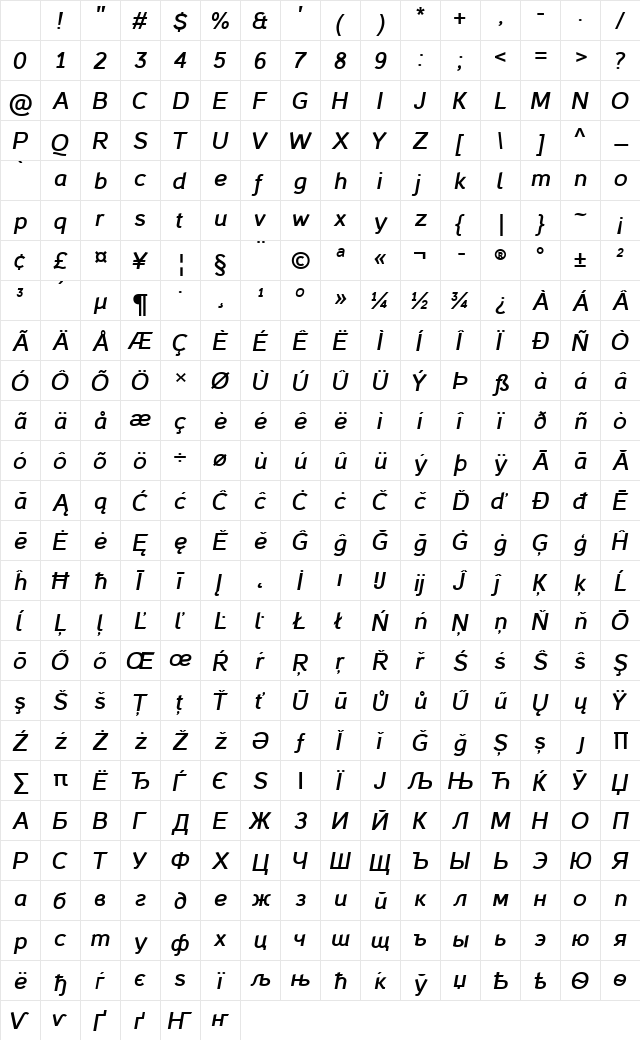
Complete Casper Bold Italic glyph index. Displaying only characters natively supported by Casper Bold Italic font.
Casper is a composed and adaptable typeface that performs quietly and consistently across a wide range of design contexts. The slanted form adds forward momentum and visual energy. Its bold stroke weight gives it real presence on the page.
Pro Tip: Use Casper for emphasis, pull quotes, and subheadings where its slanted energy can add rhythm to the layout.